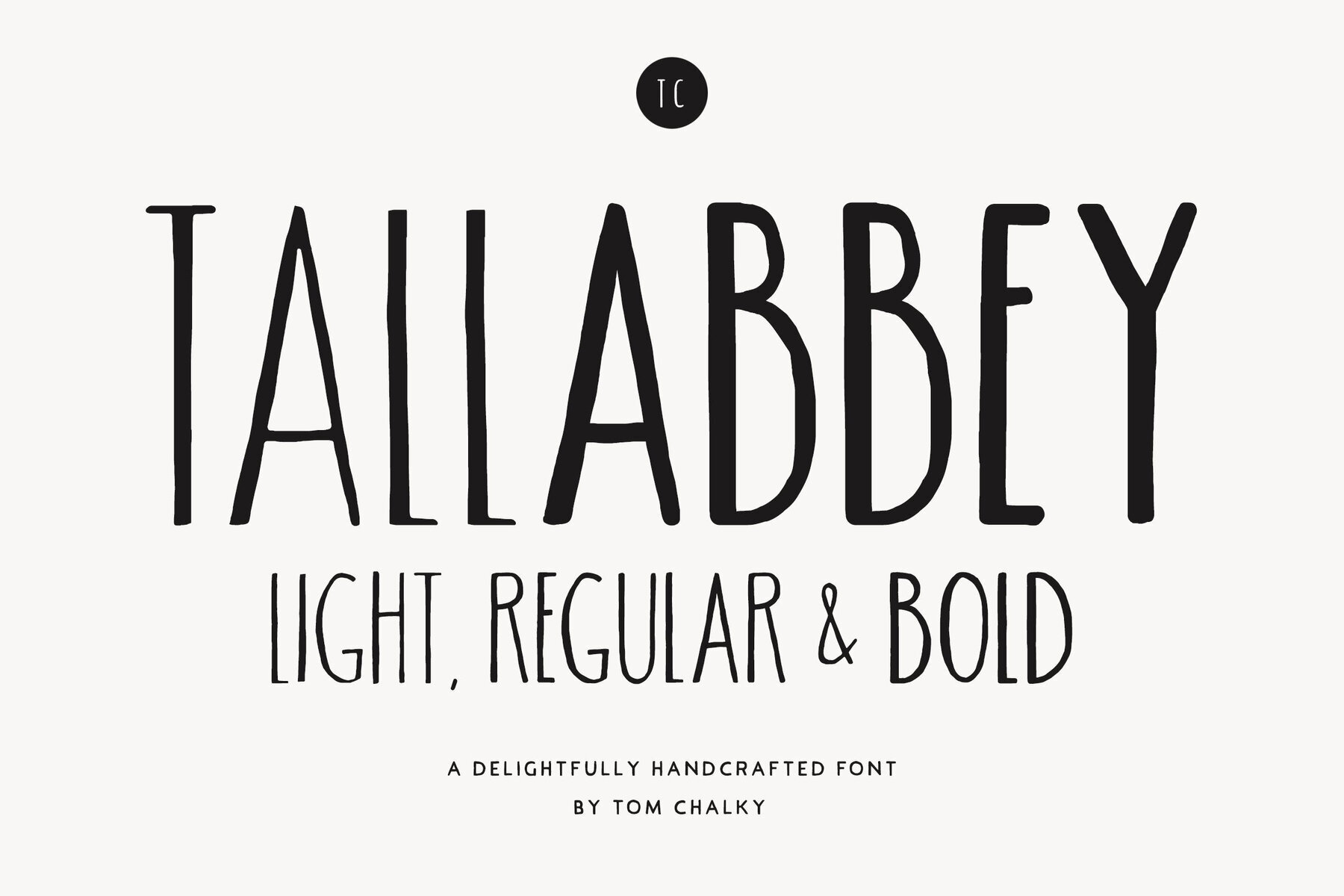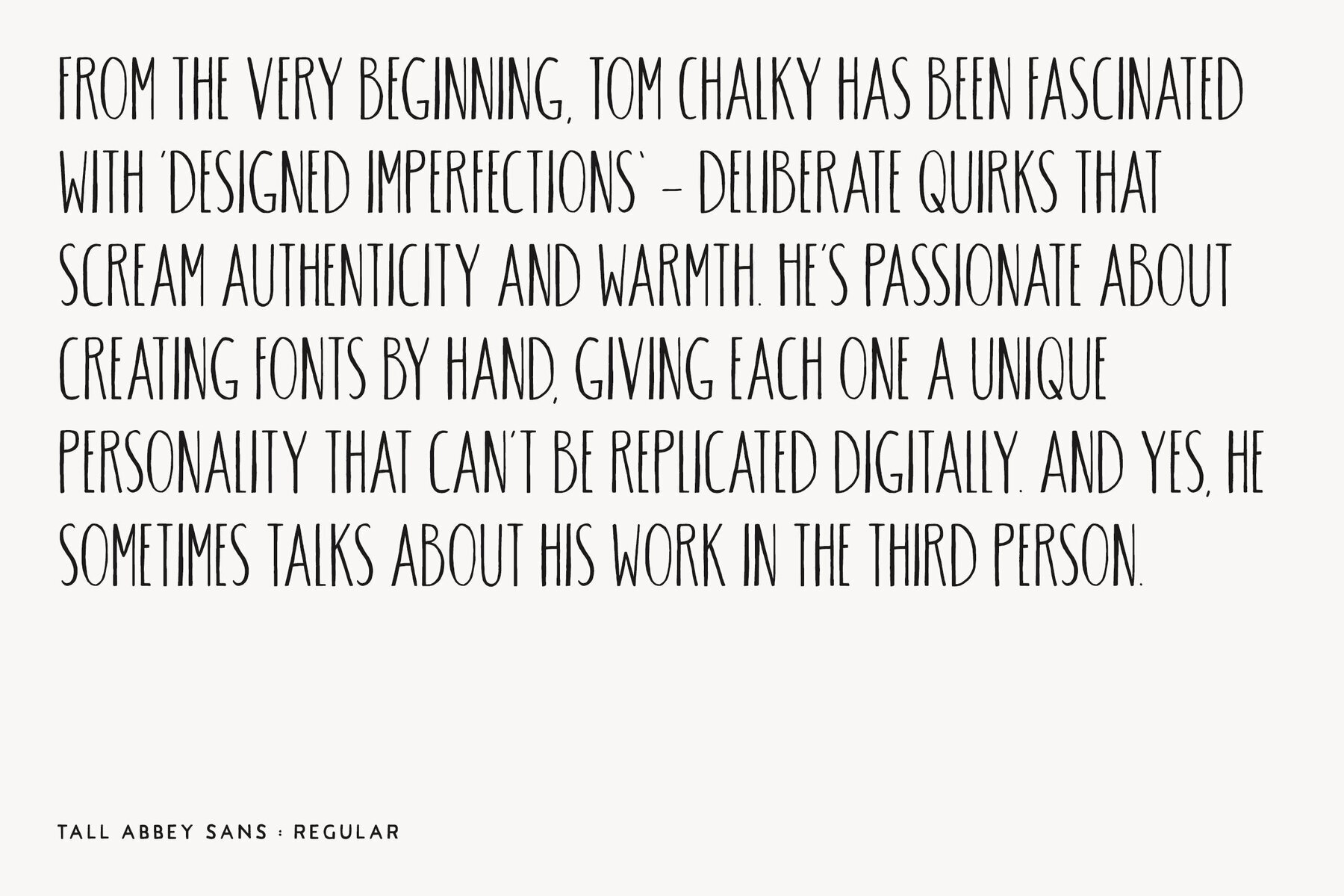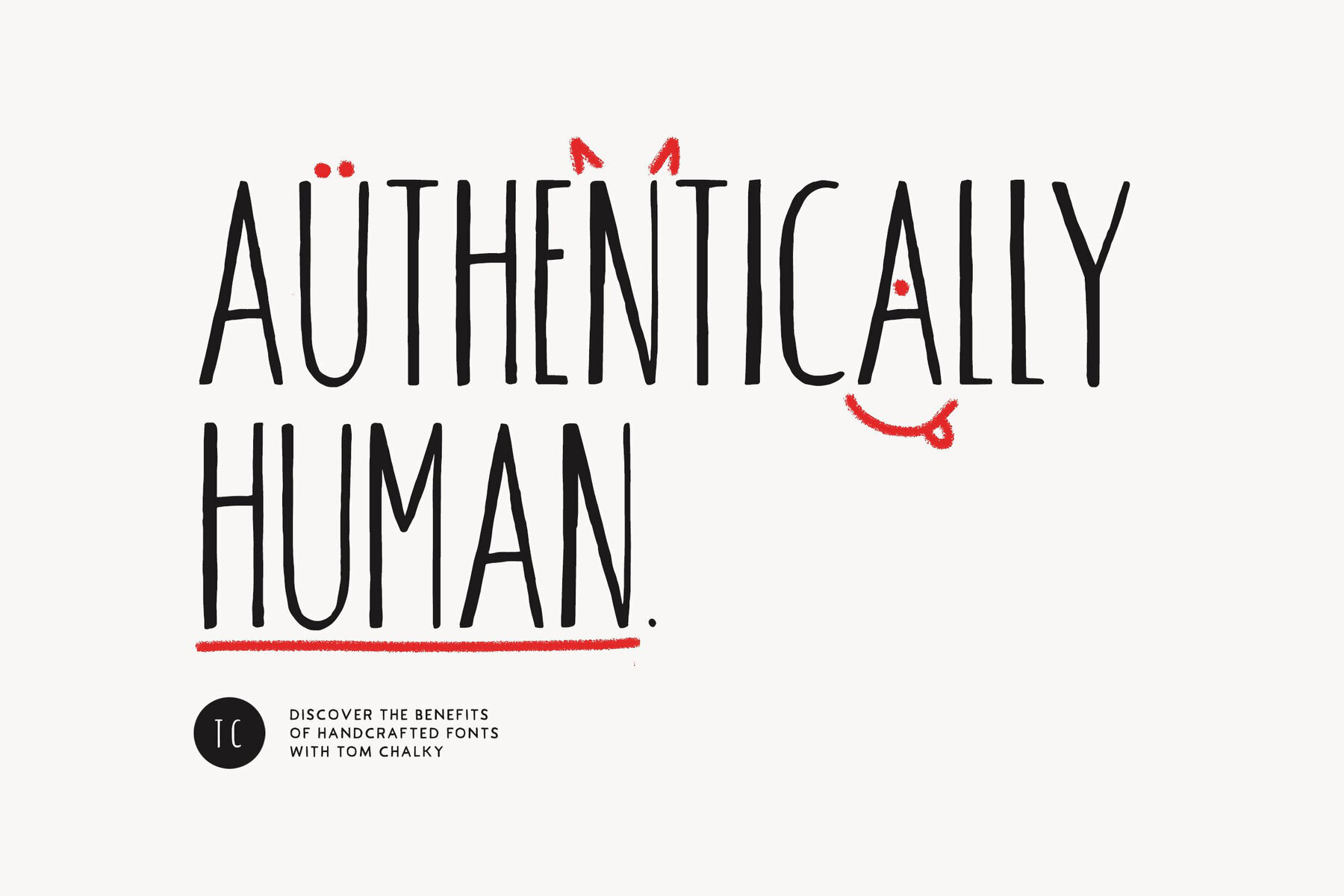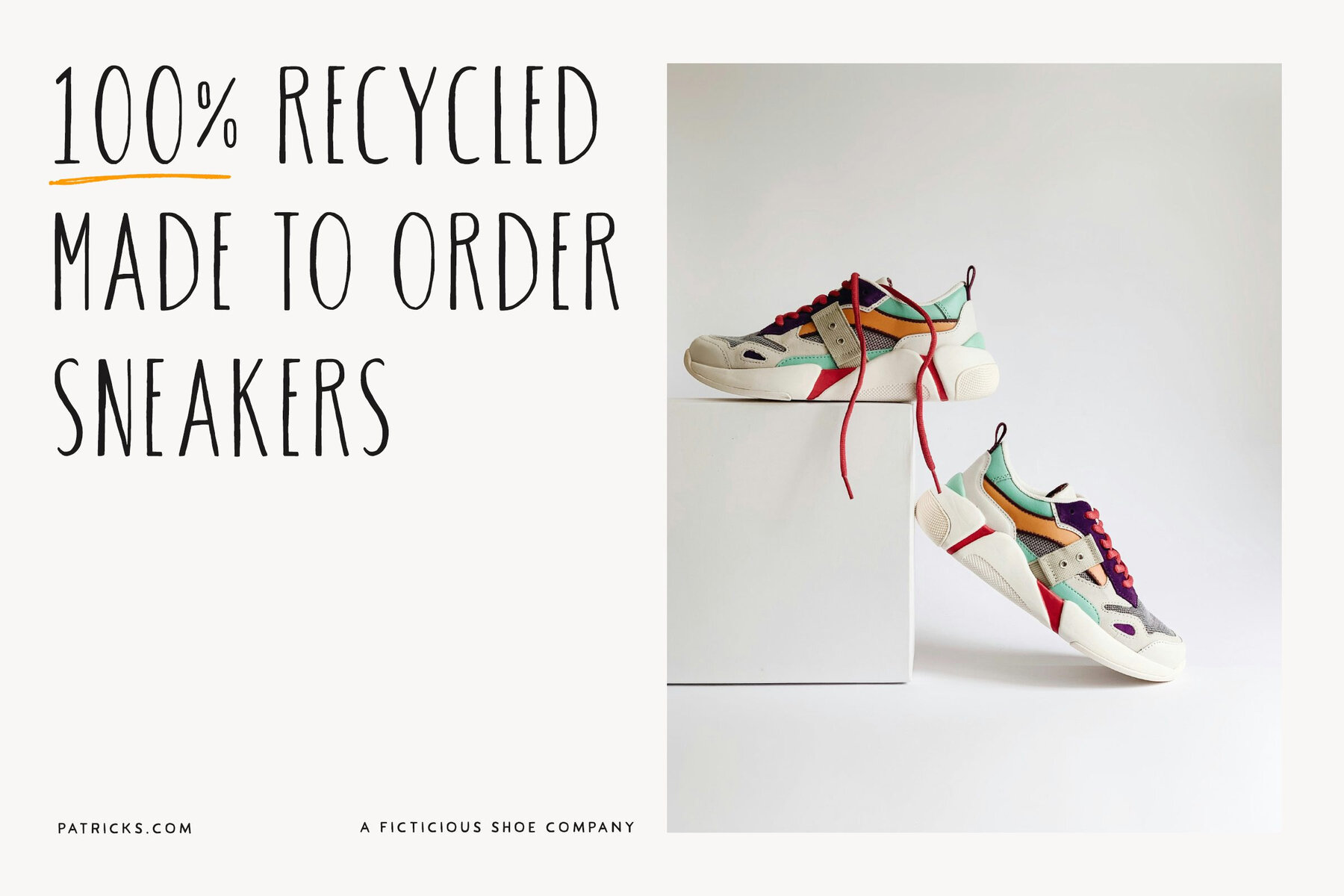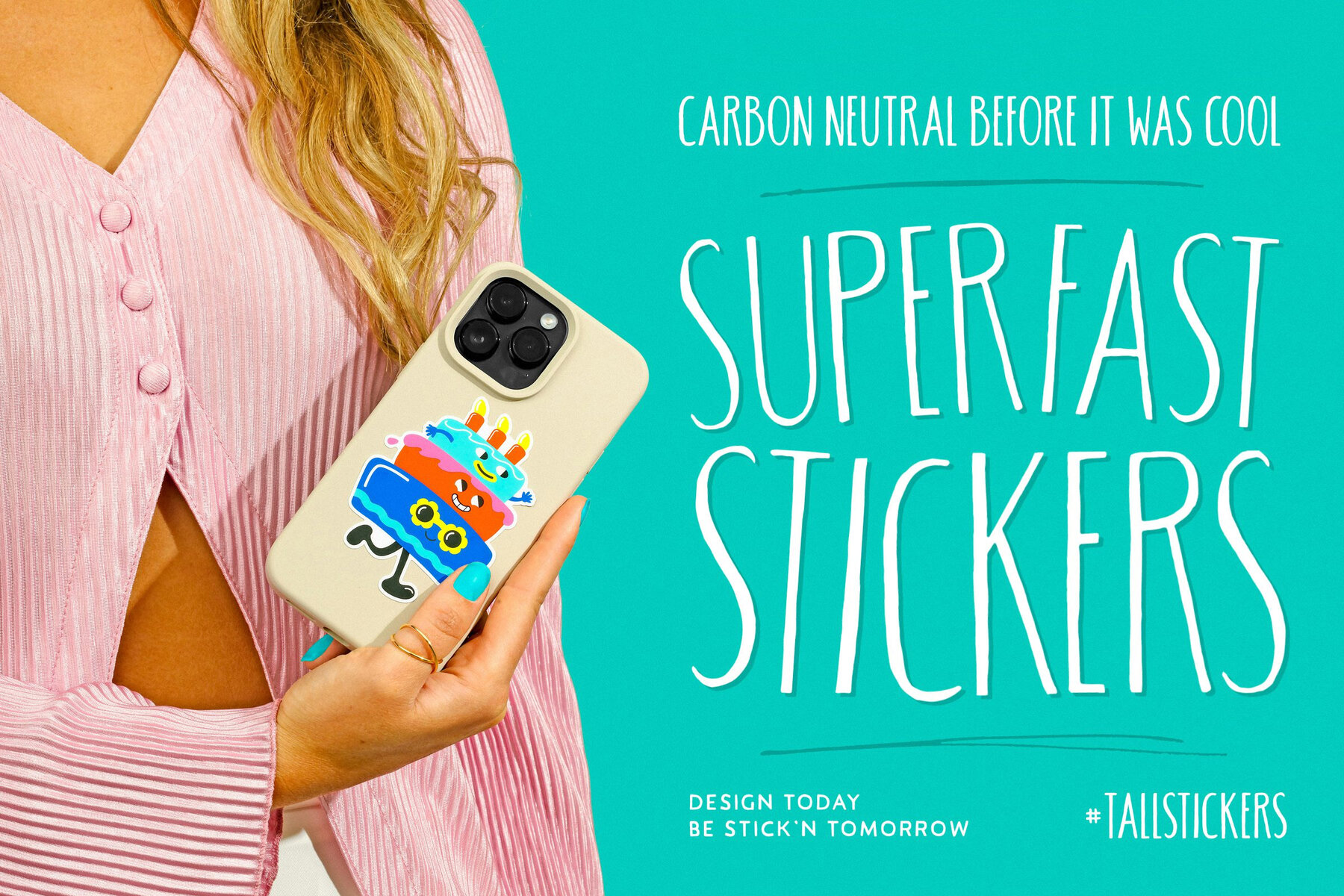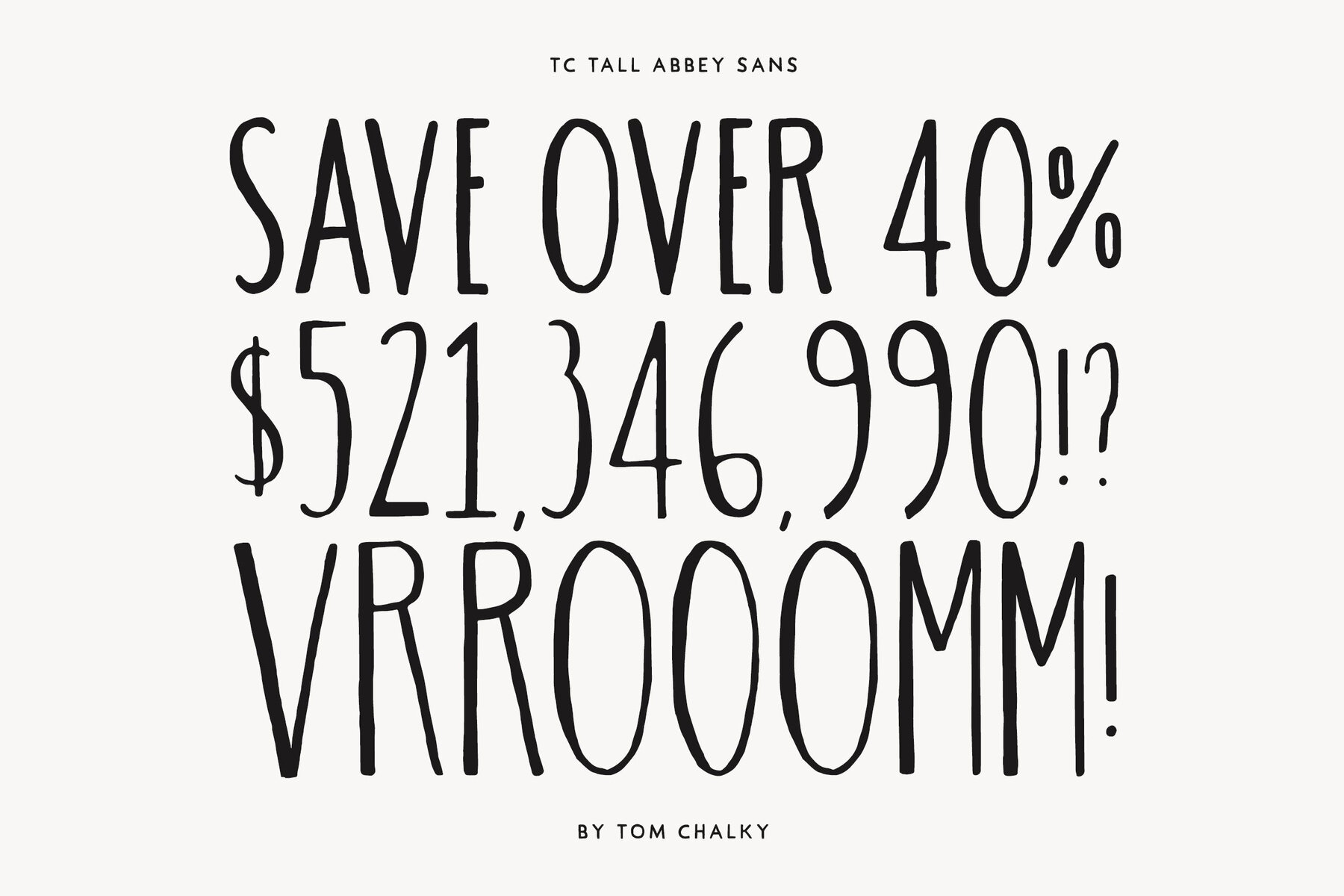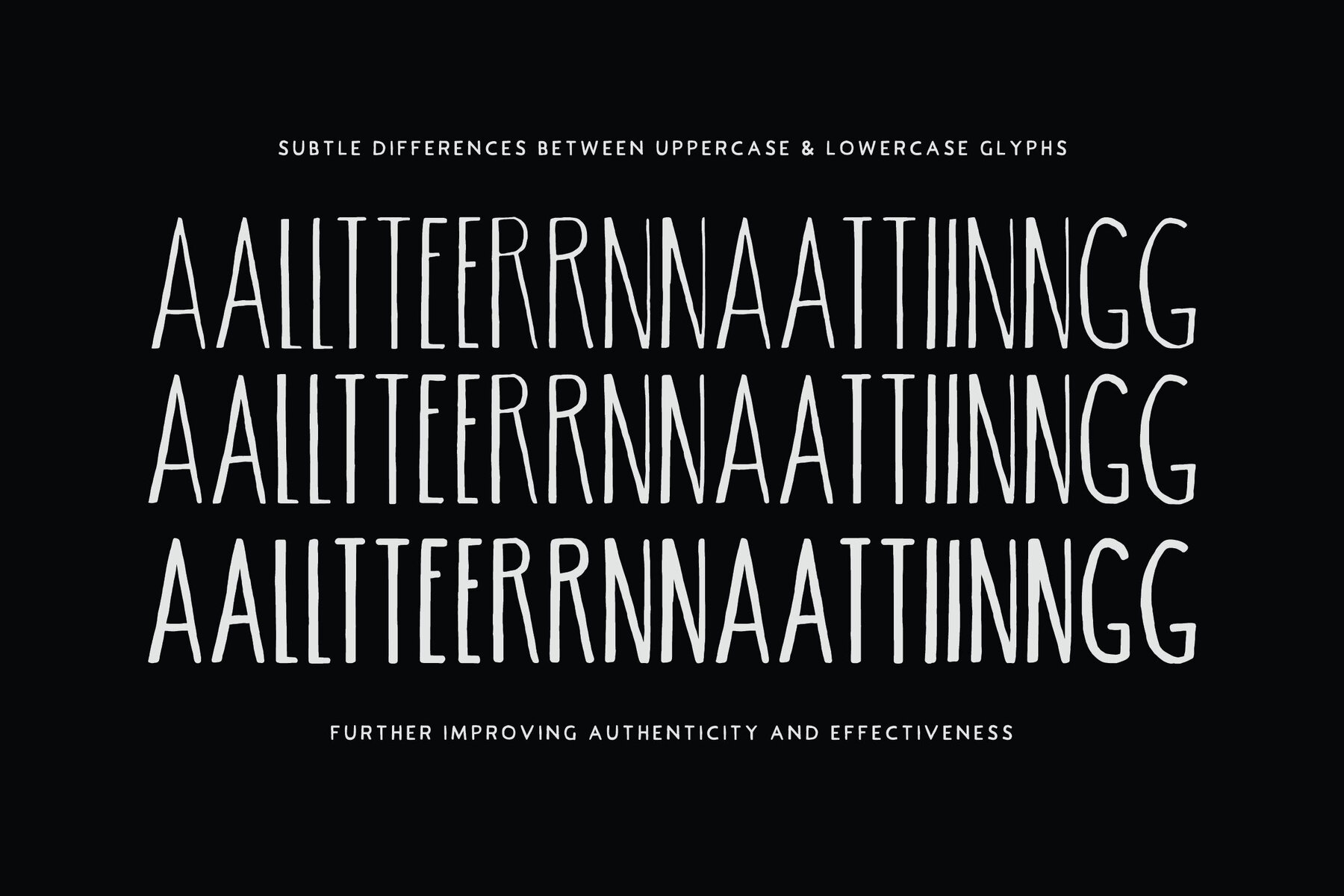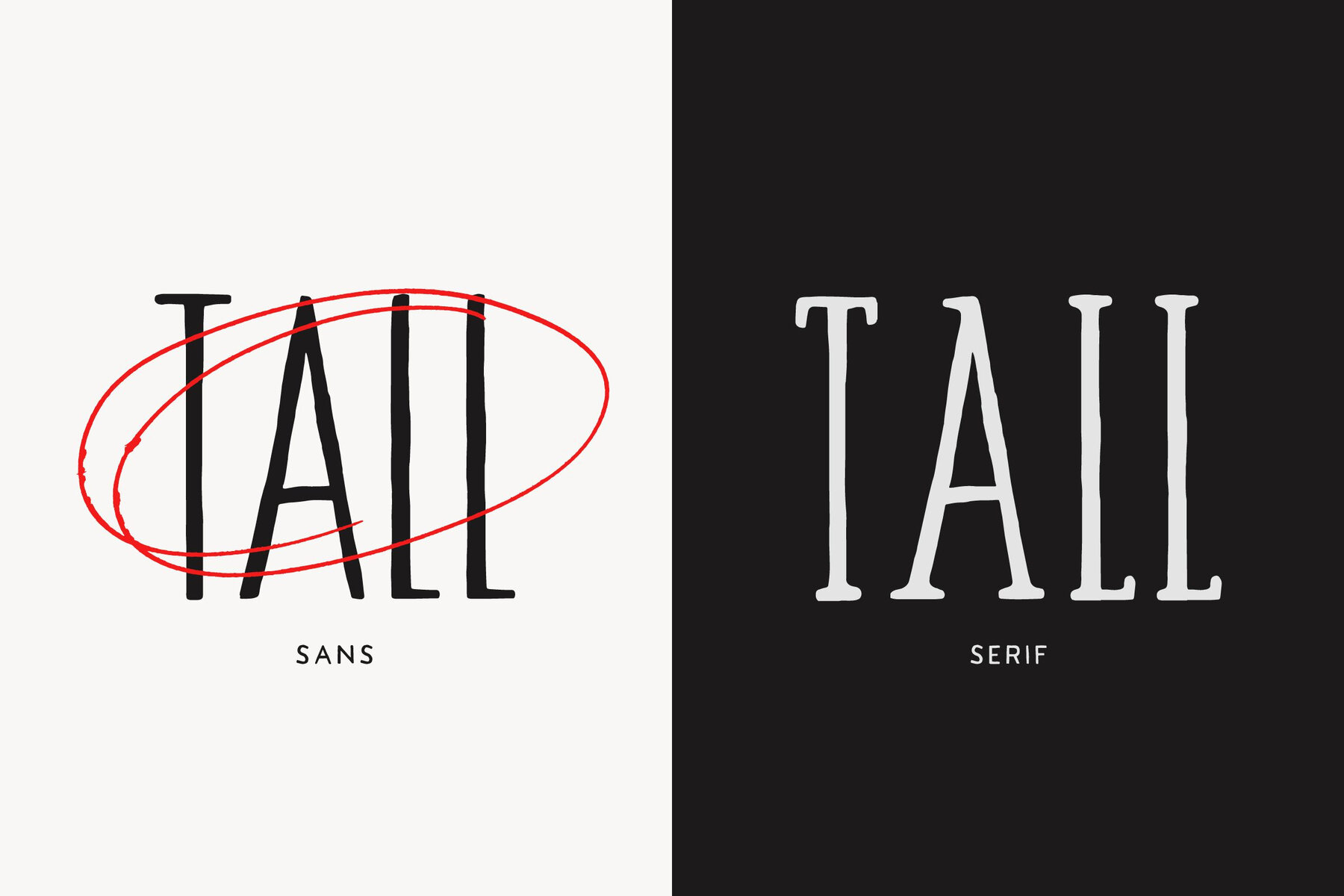
TC Tall Abbey Sans 1
Proudly introducing ‘TC Tall Abbey Sans’ – A quirky, tall, authentic, and warm font family full of perfect imperfections and personality. Oozing all the joys of handwritten typography, Tall Abbey effortlessly infuses a human touch into our digital world and your design projects.
An entirely uppercase typeface where the lowercase glyphs offer slight variations of its counterpart, improving the handwritten effect.